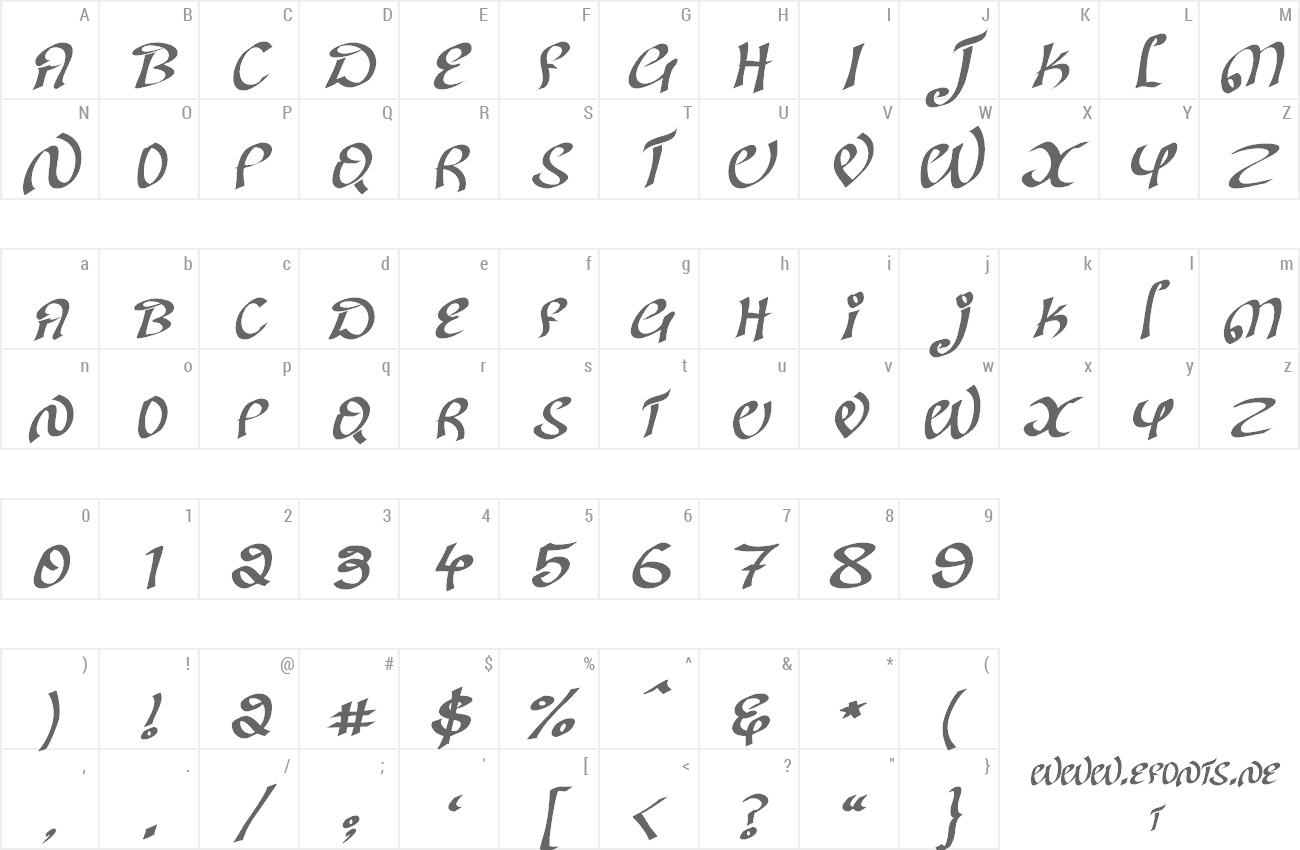
This font is 100% free for commercial use, so you can do anything you like with it! But if you want to support me so that i can create more fonts for free, don't feel shy to use "Donate to Author" button. This font is handmade and resembles the south Indian language Kannada, Hence the name Kanglish. I made it with love, so I hope you’ll love to use it ! |